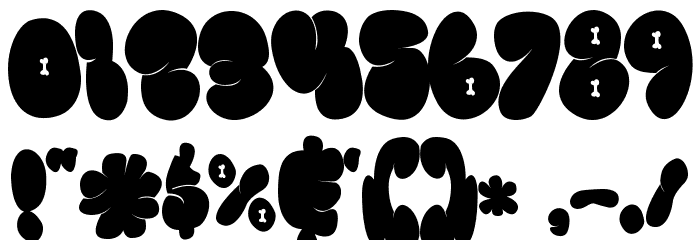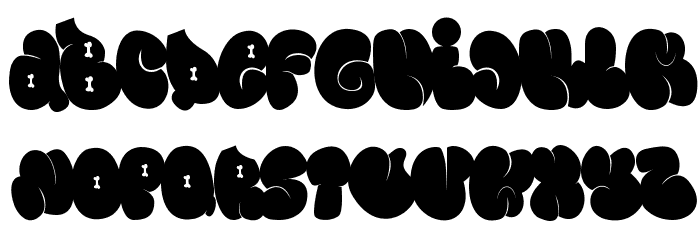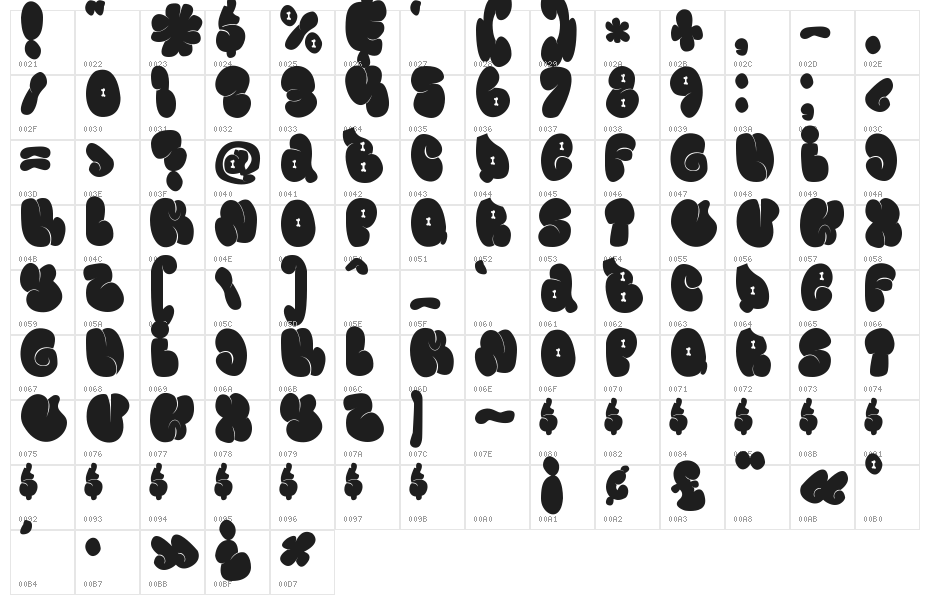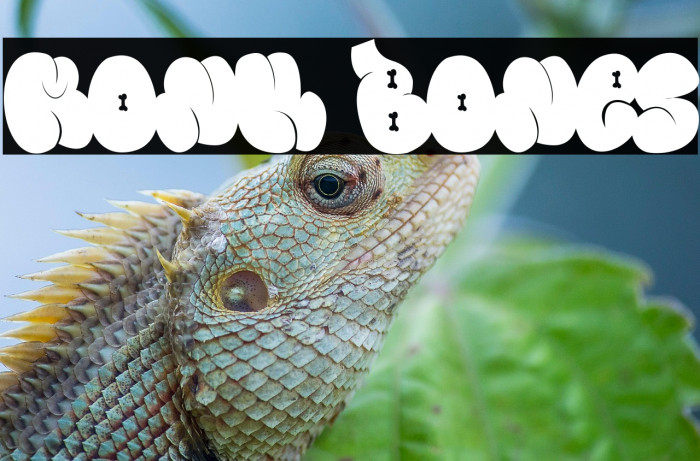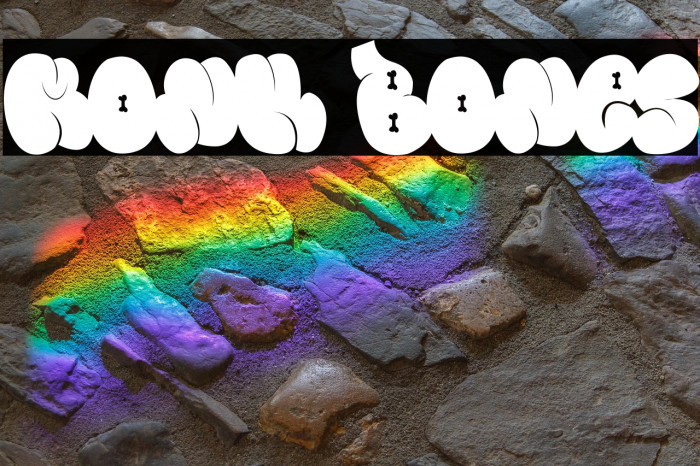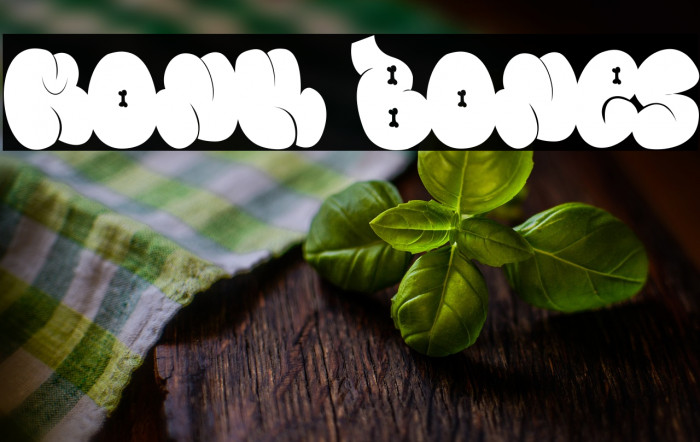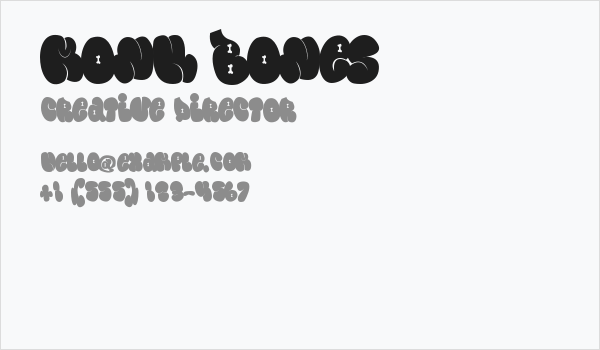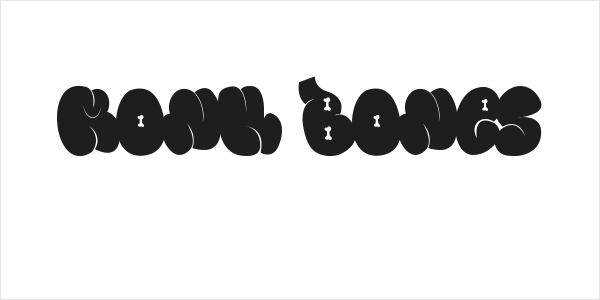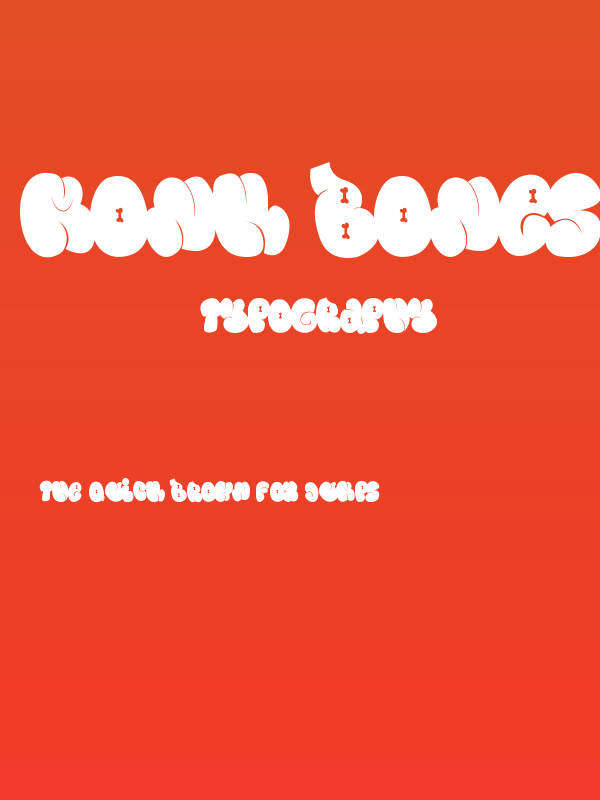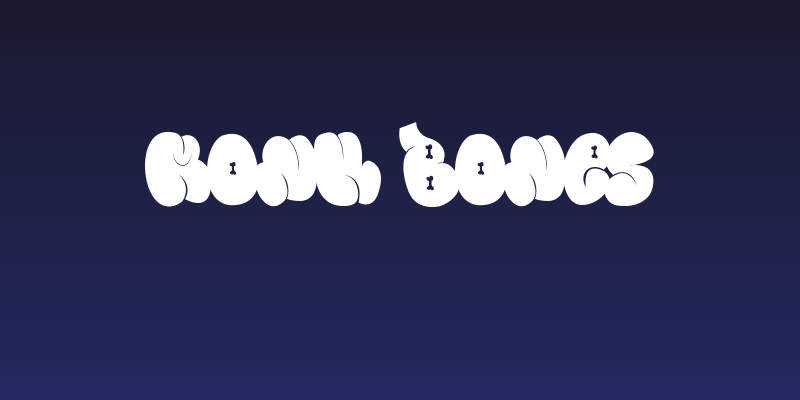
Monk Bones Font
Monk Bones Description
This font features a bold and playful design with thick, rounded strokes that create a bubbly and whimsical appearance. Each character is uniquely crafted with a sense of fun and creativity, making it stand out with its bold presence. The letters are tightly spaced, enhancing the compact and cohesive look of the text. The font's high contrast in stroke thickness adds to its dynamic and eye-catching style. It is ideal for projects that require a touch of humor and boldness, such as children's books, playful branding, or creative posters.
| Proposed Projects | Children's books, playful branding, creative posters, party invitations. |